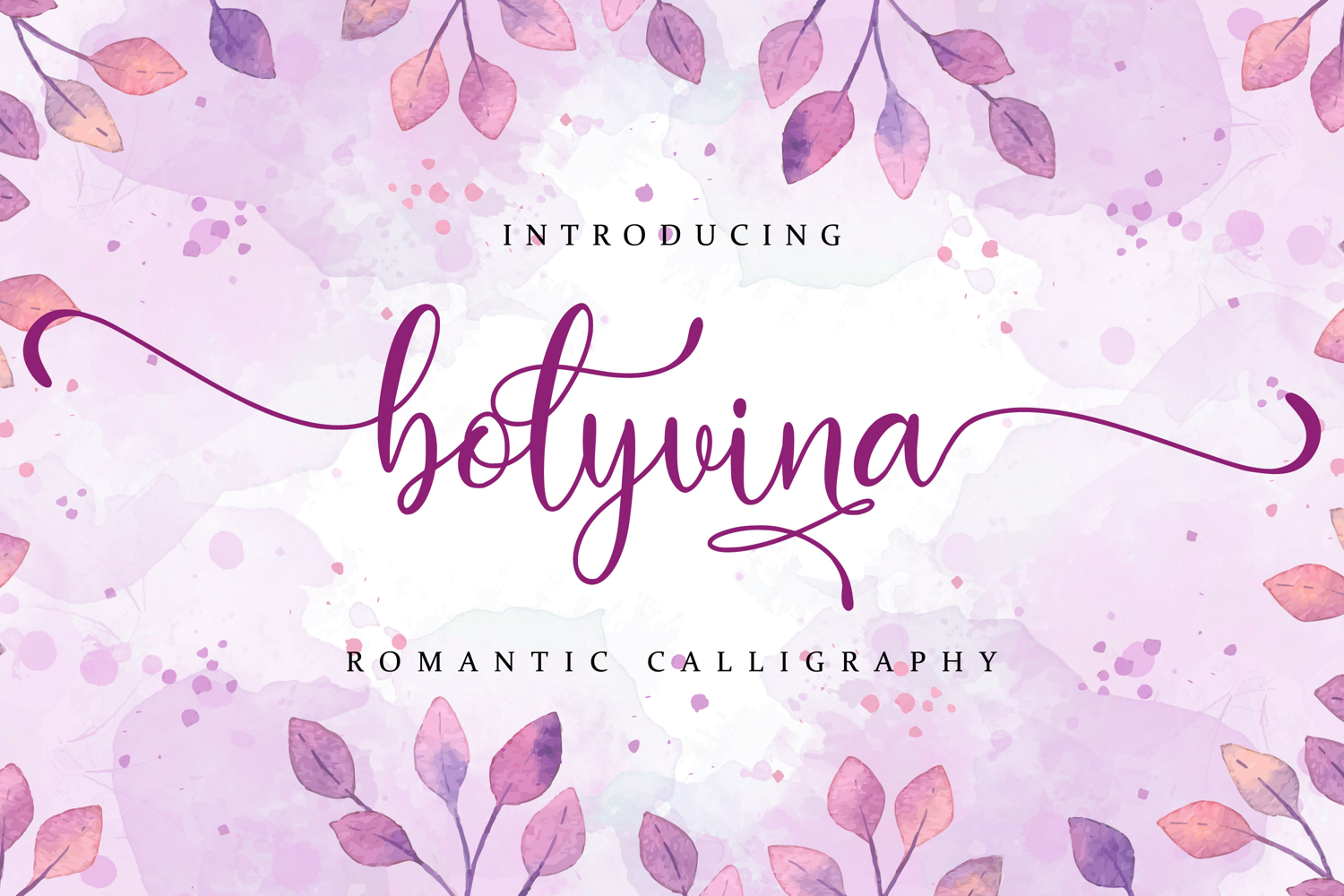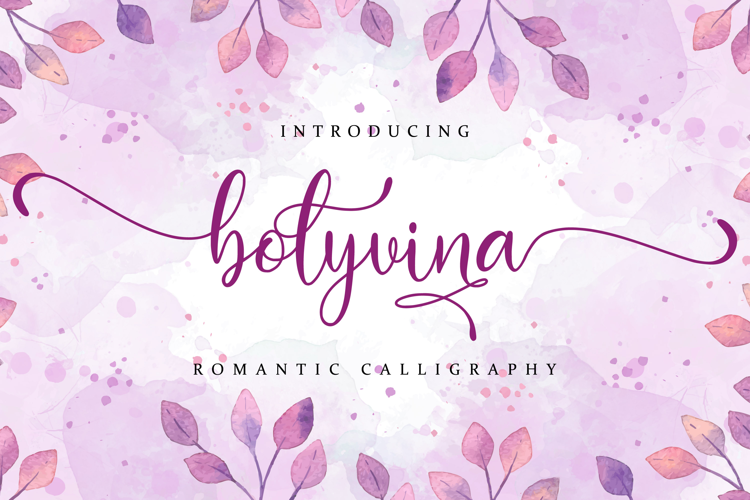
Bolyvina - Romantic Calligraphy
Bolyvina -is a Romantic Script Calligraphy font with a natural handwritten feel. It has lovely ligatures and alternates that are perfect for any creative design. This handmade font will make your design has a beautiful natural touch for each details. It is perfect for any design project as Invitation,logo, book cover, craft or any design purposes. This font is PUA encoded which means you can access all of the magical glyphs and swashes with ease! It also features a wealth of special features including alternate glyphs and ligatures.